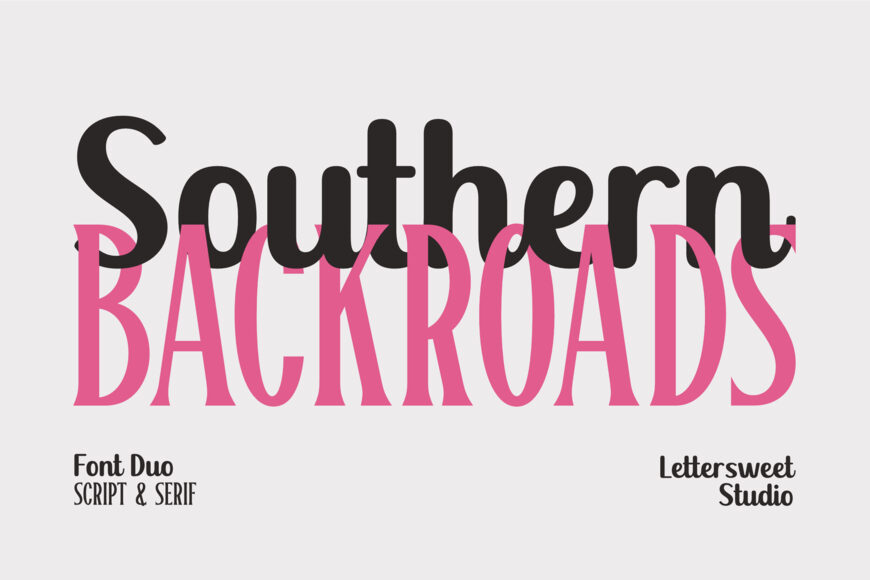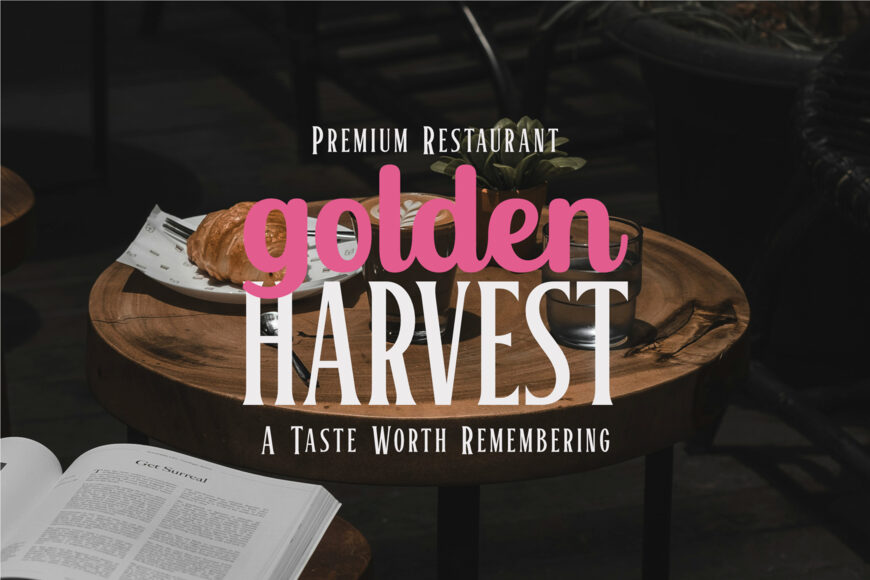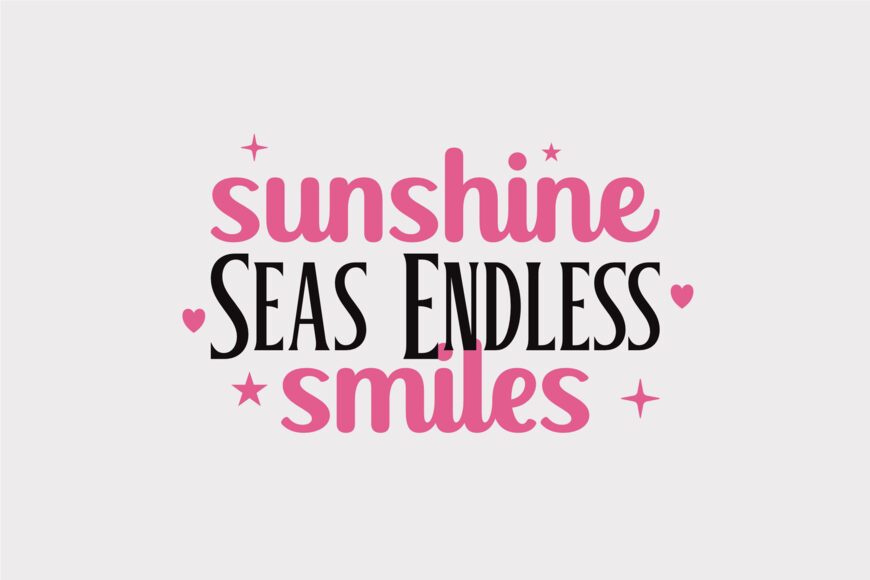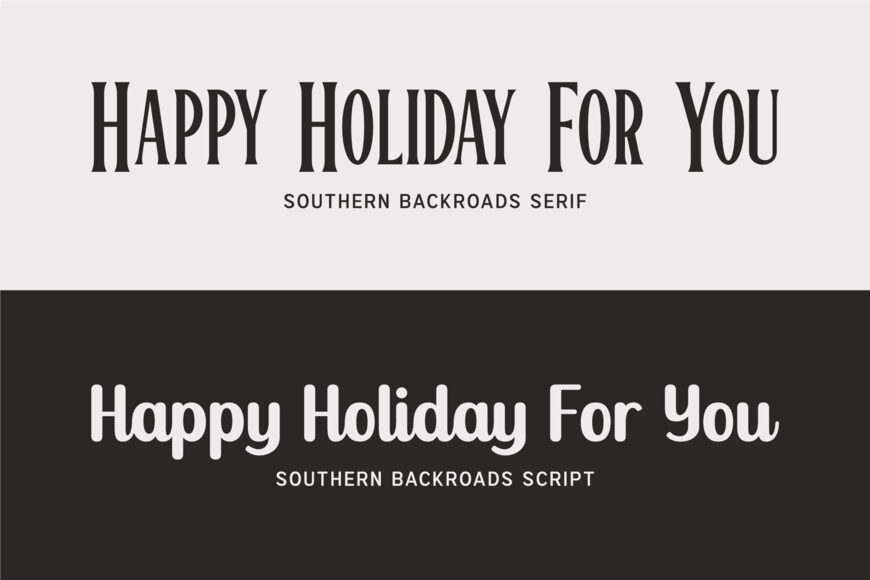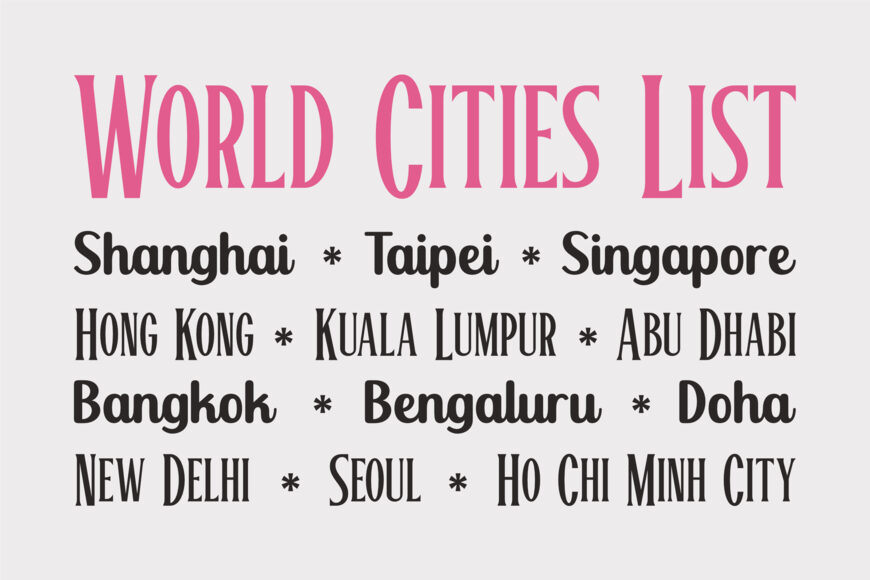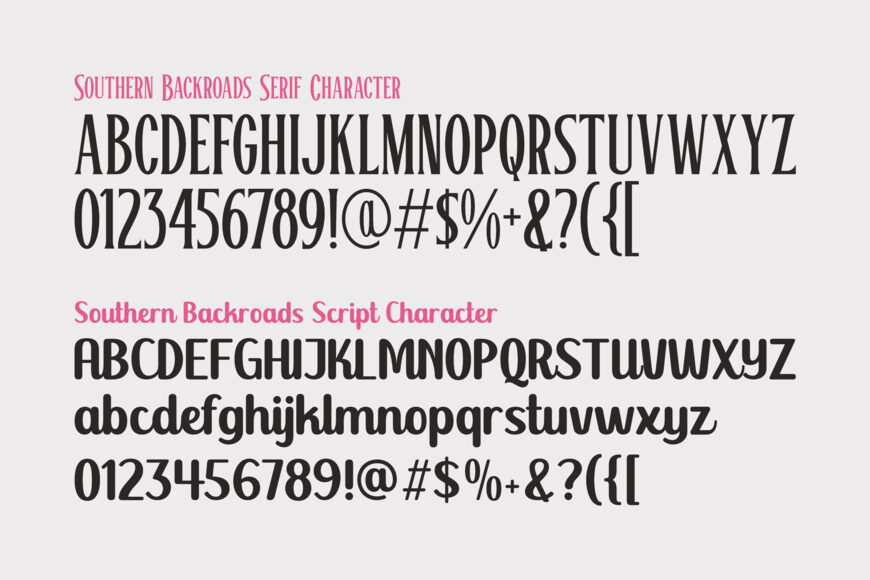
Southern Backroads Font Duo
Southern Backroads is a stylish font duo that combines a smooth handwritten script with a tall, elegant serif, creating the perfect balance of charm and sophistication. Designed to bring a warm Southern-inspired feel to your projects, this versatile typeface is ideal for designers looking to create eye-catching and memorable visuals.
The flowing script adds personality and authenticity, while the refined serif delivers a timeless and professional appearance. Whether used together or separately, Southern Backroads offers endless creative possibilities for branding and design.